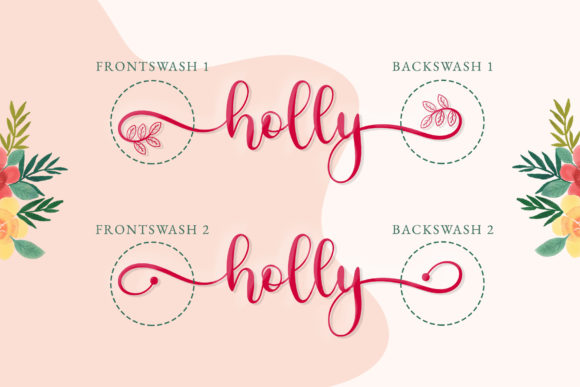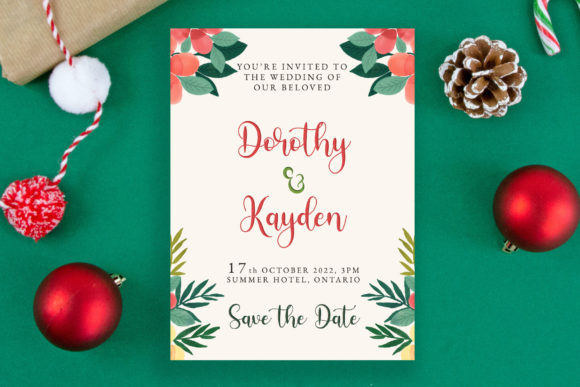
Holly Script Font
db-ku.com - Script & Handwritten -- Holly Script is a delicate, elegant and flowing handwritten font. It has beautiful and well balanced characters and as a result, it matches a wide pool of designs. Holly Script features a varying baseline, smooth lines, gorgeous glyphs and stunning alternates. Add it to your most creative ideas and notice how it makes them come alive!